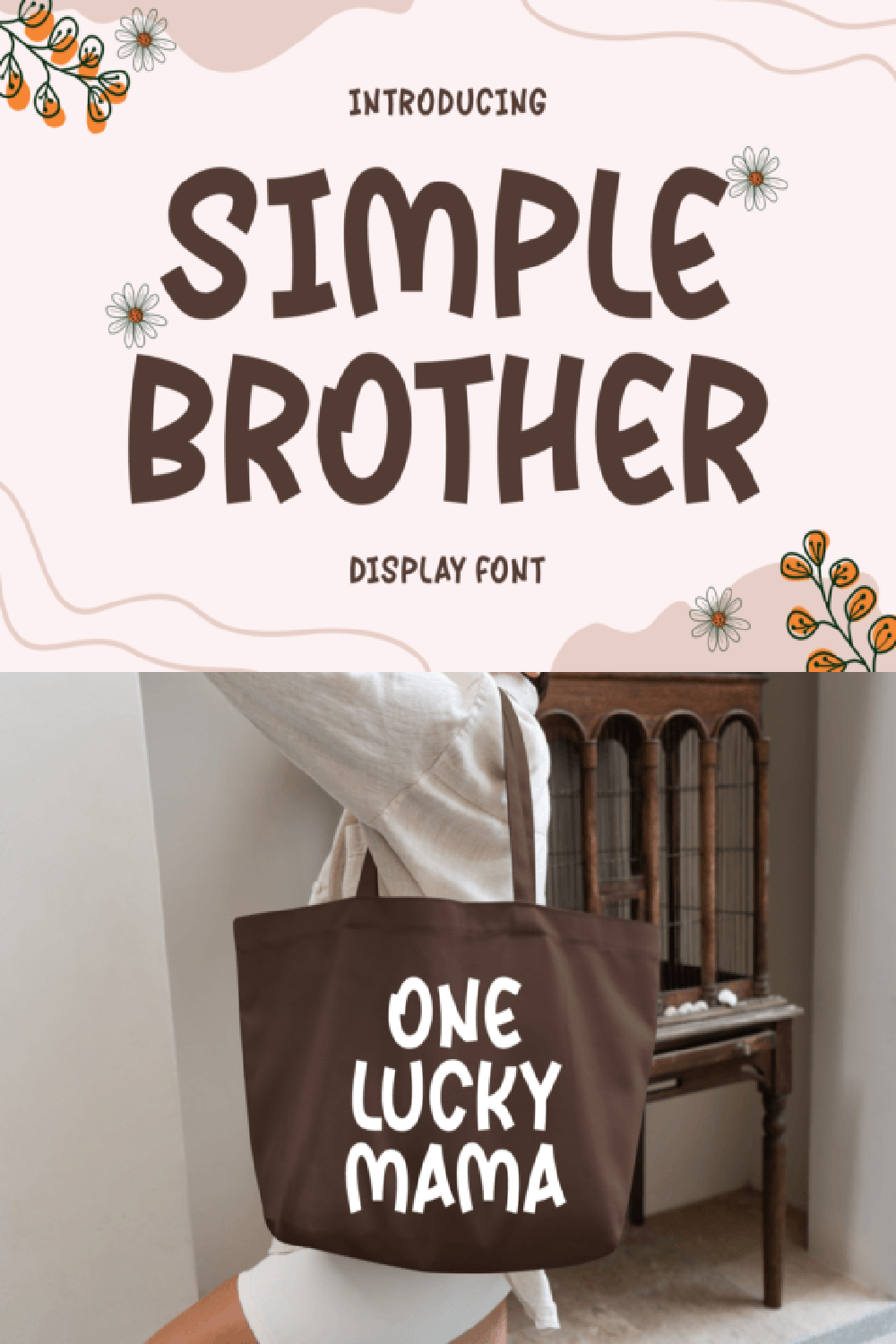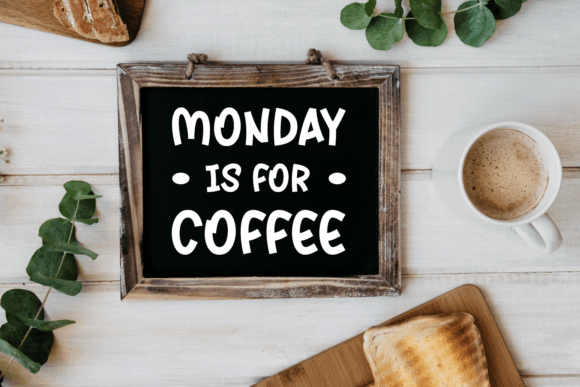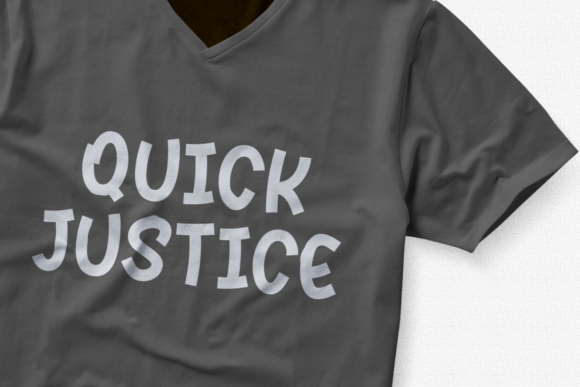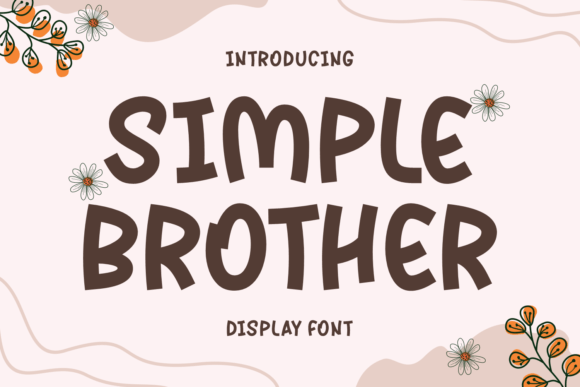
Simple Brother Font
About the Simple Brother Font
The Simple Brother Font is here to transform your projects with its distinctive character and style. Simple Brother is the newest sensation amongst display fonts that’s guaranteed to arrest your attention! This font, with its distinct identity, infuses a burst of energy into posters and lends an unexpected, delightful spin to magazine formats.
This font knows how to enthrall and create enduring memories. Personable yet charming, ‘Simple Brother’ sets itself apart in the bustling sphere of display fonts. Prepare to celebrate the exuberant side of typography with Simple Brother.